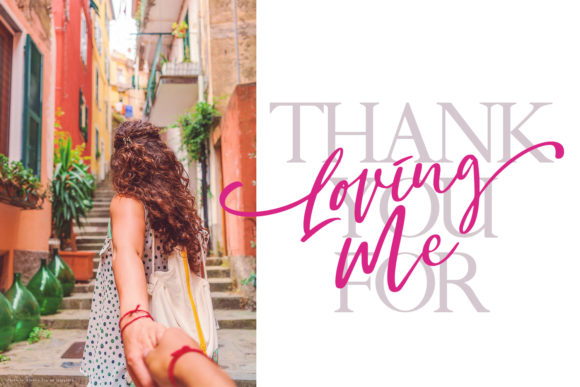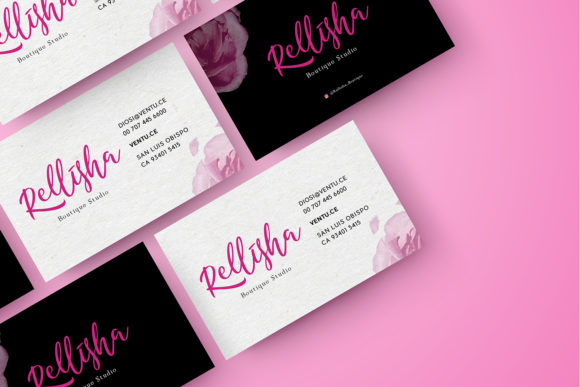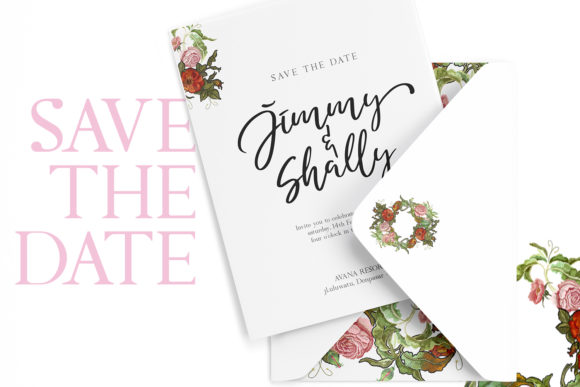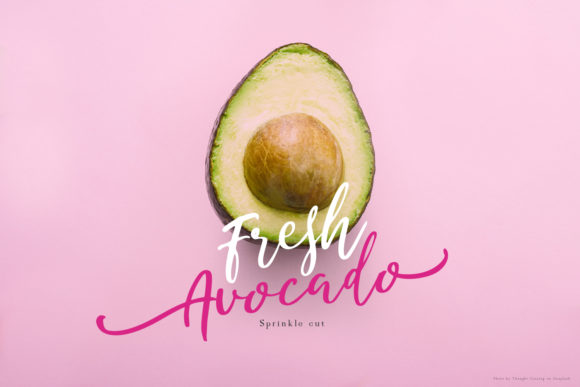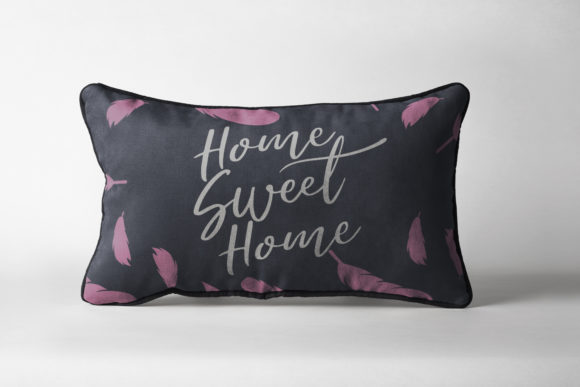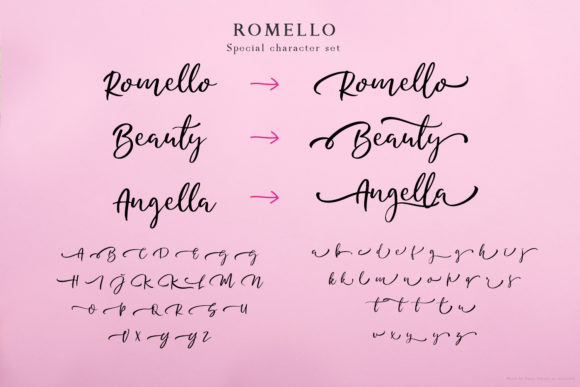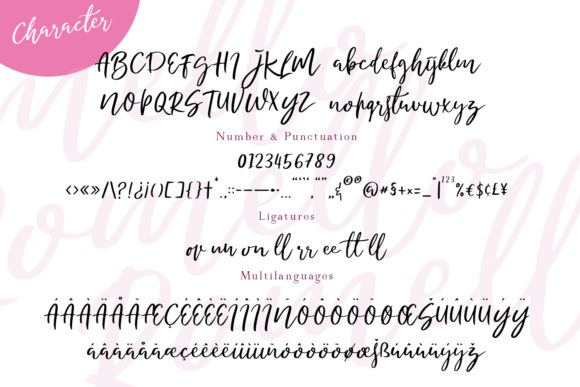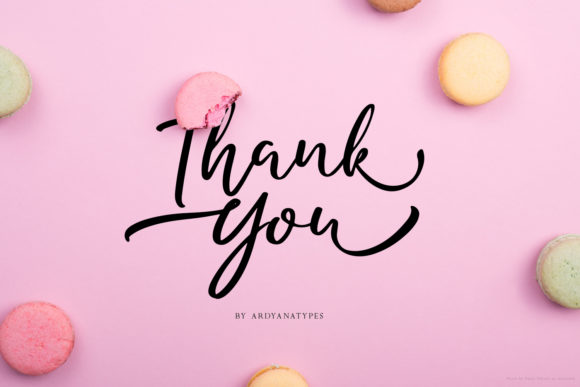
Romello Font
About Romello Font
Romello is an equally fun and cute script font that’s great for adding that extra dash of personality to your next creative project.